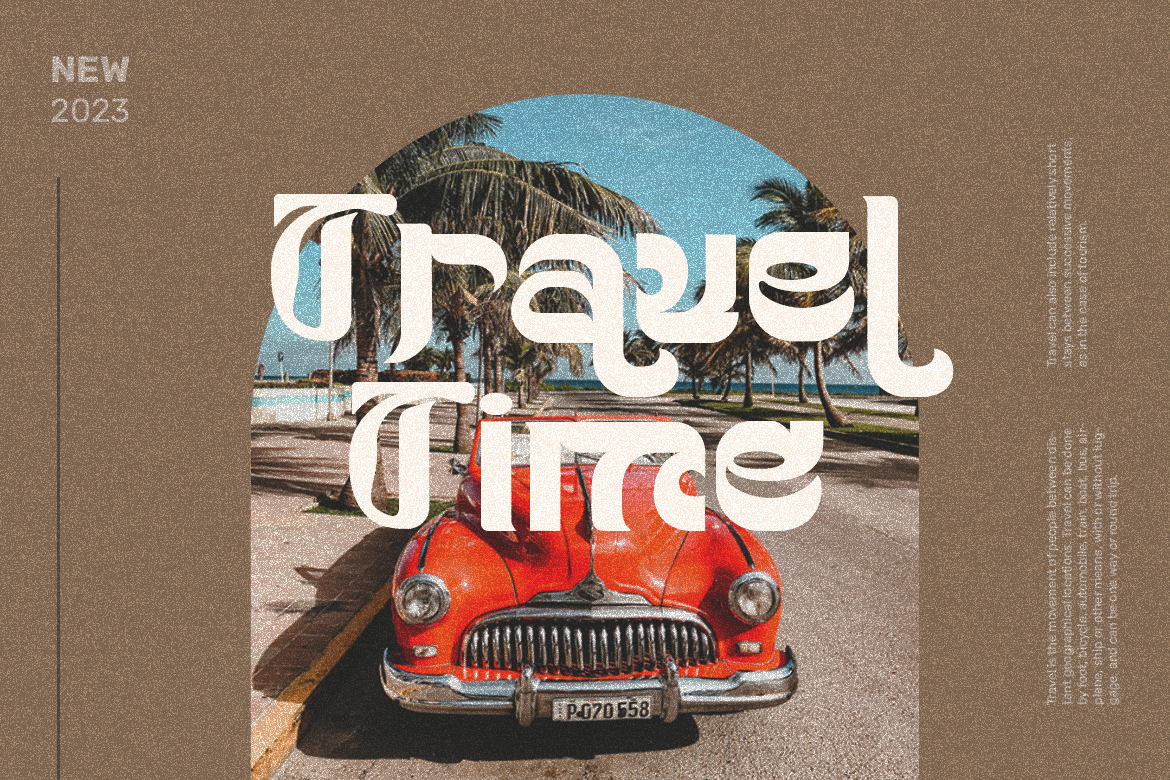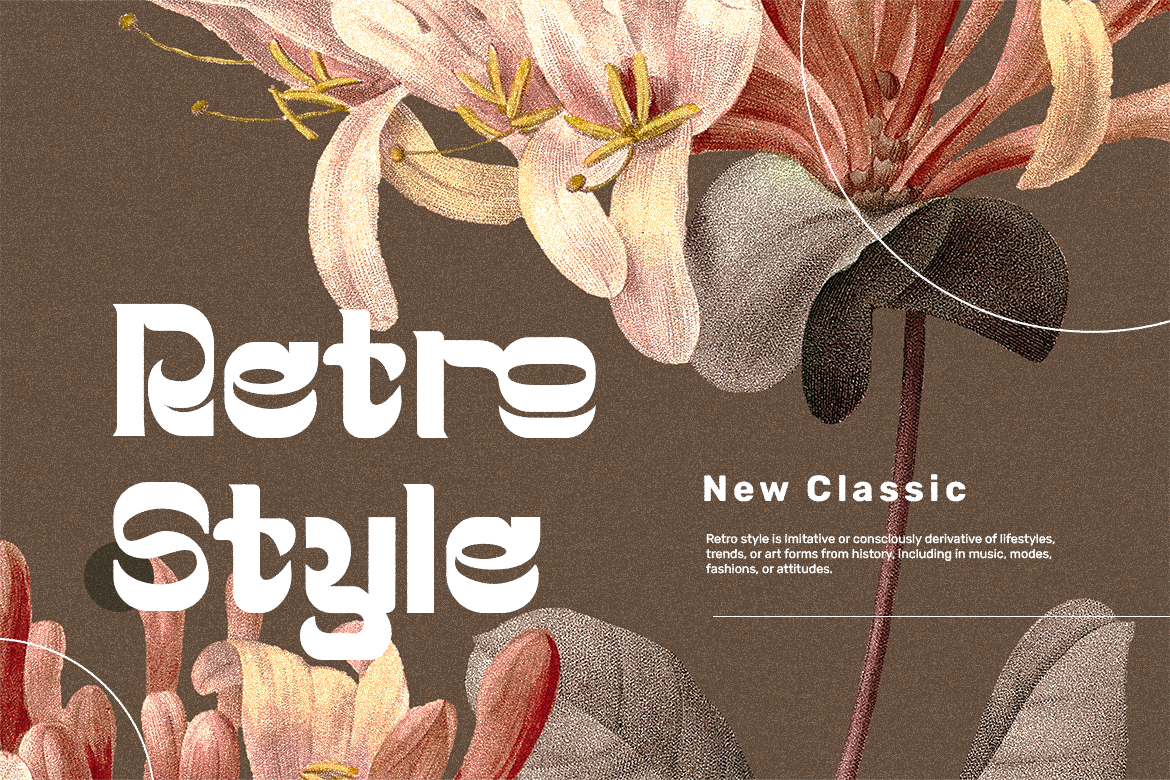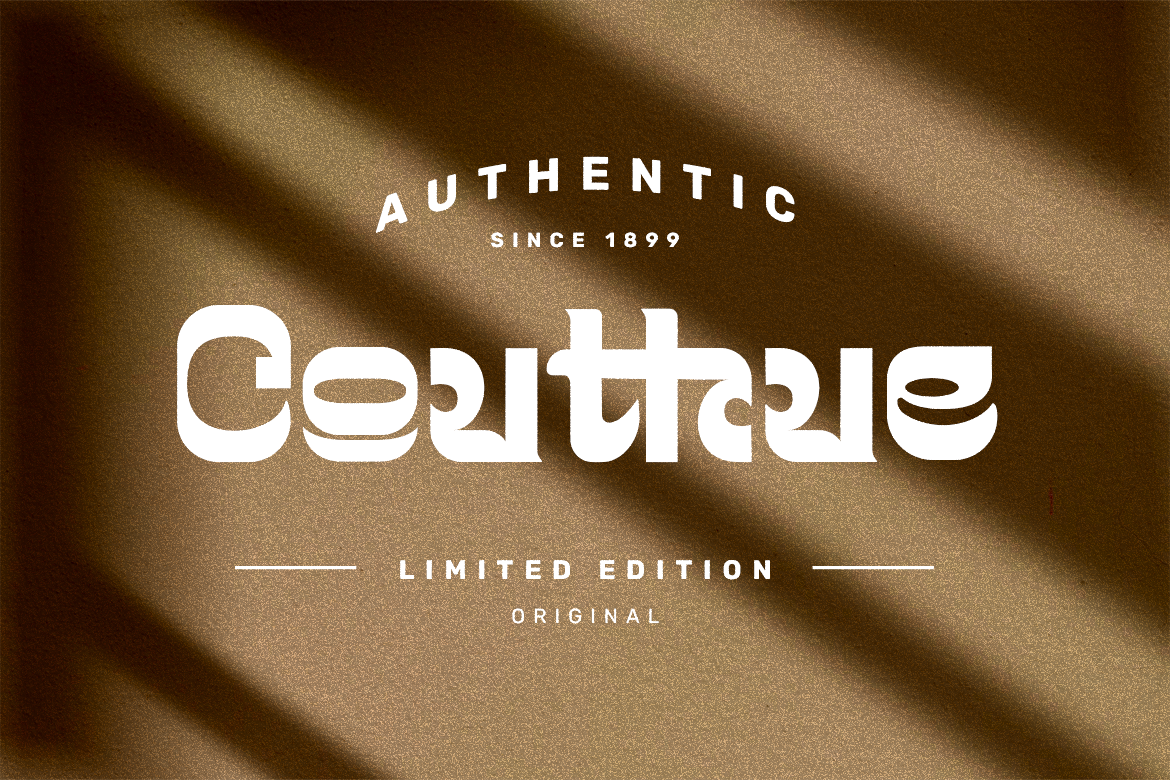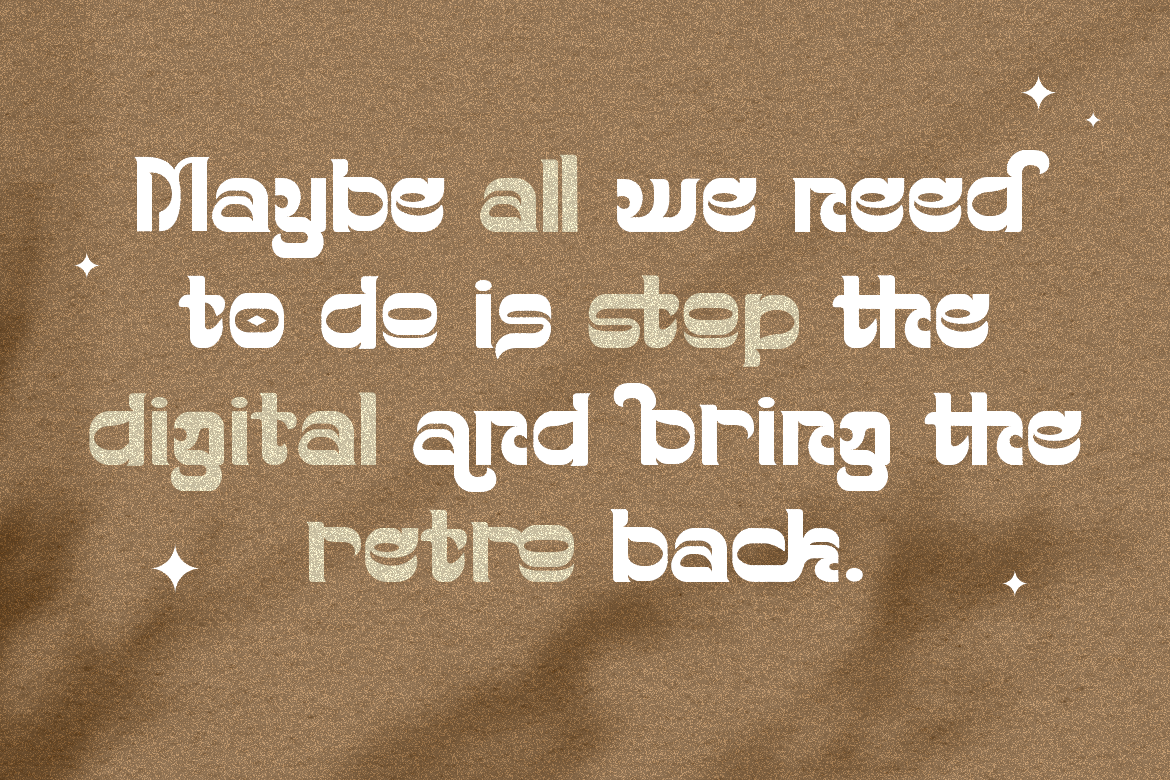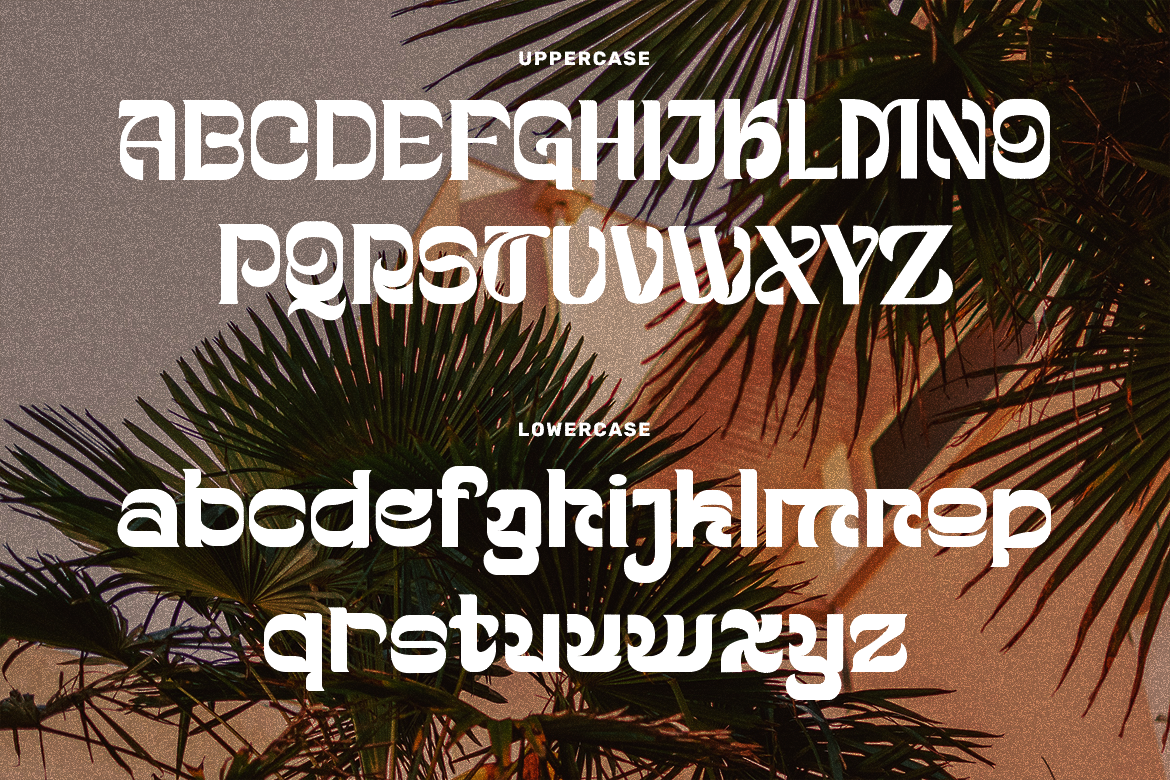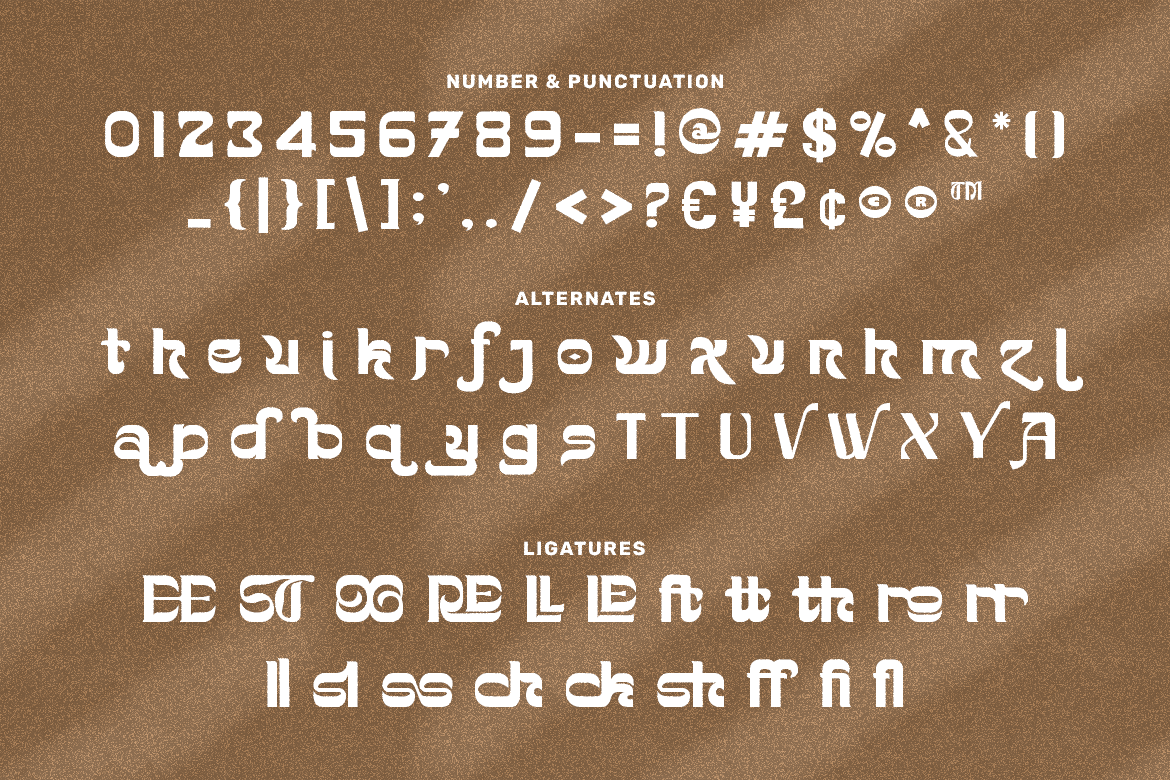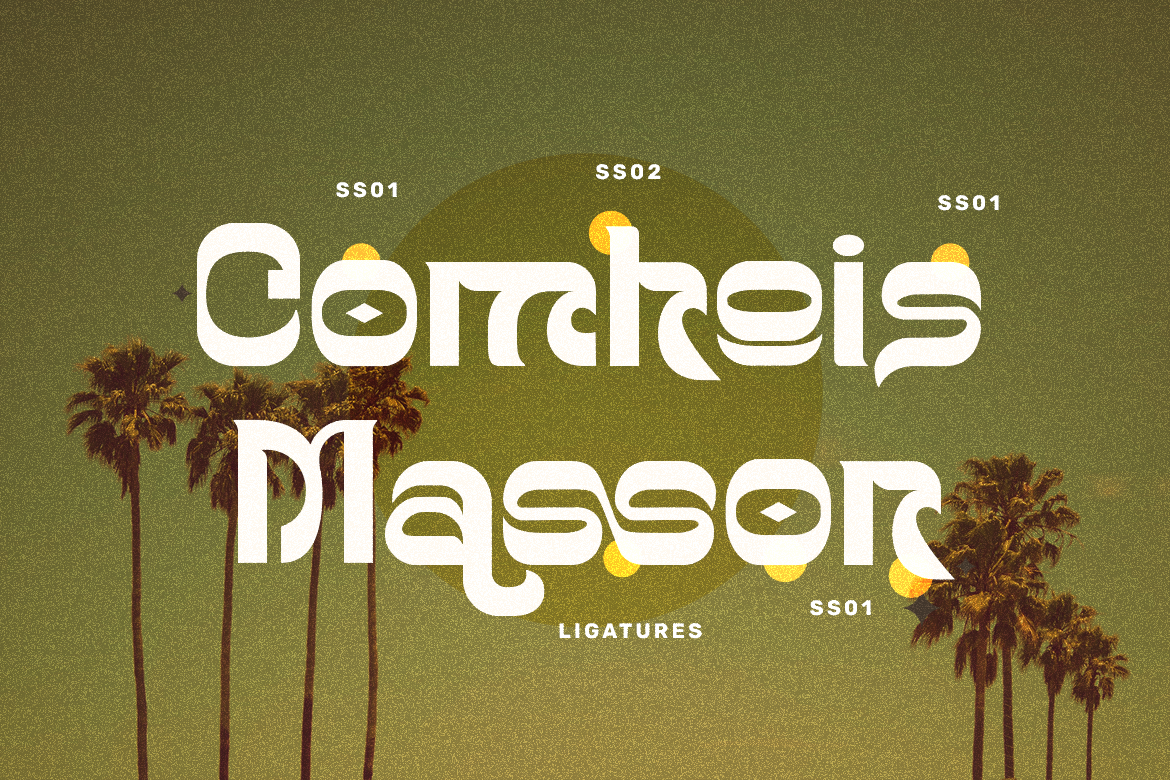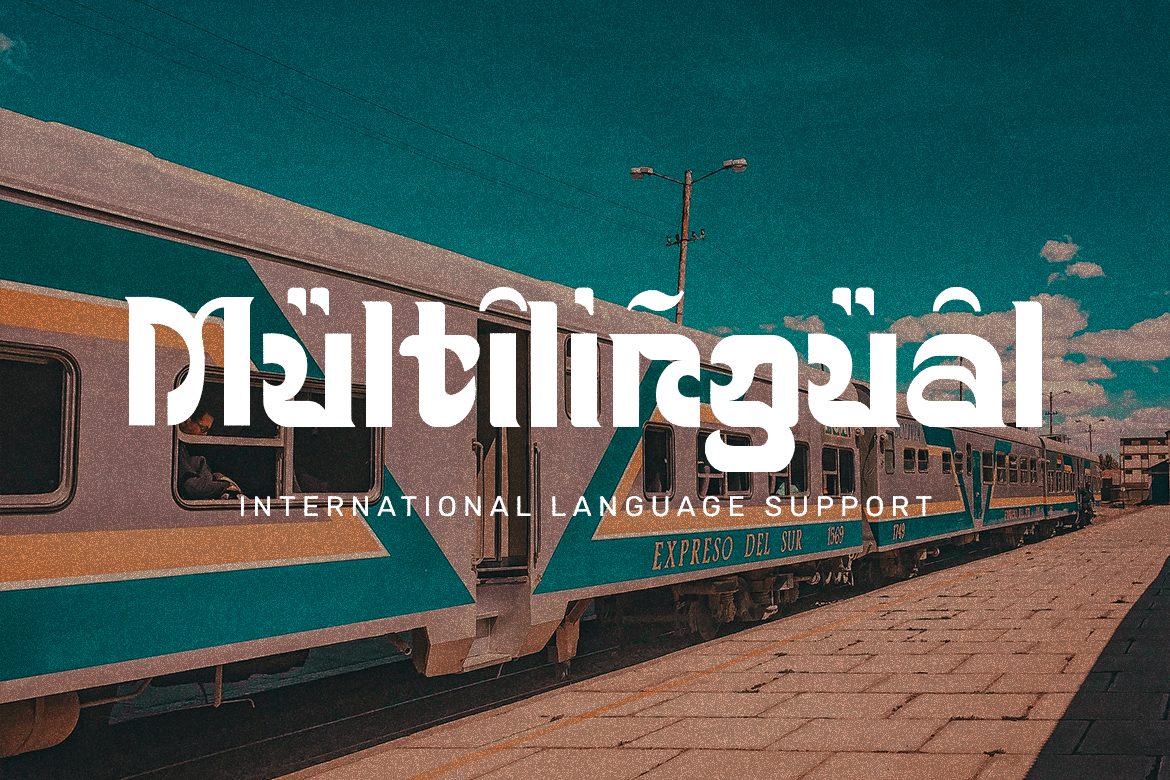
Fondre Retro Display
Fondre the Retro Display typeface combines vintage charm with a modern twist, creating an irresistible and unique look that is both timeless and stylish.
Fondre is perfect for branding projects, logos, wedding designs, social media posts, advertisements, product packaging, product designs, label, photography, watermark, invitation, stationery, and any projects that need handwriting taste.